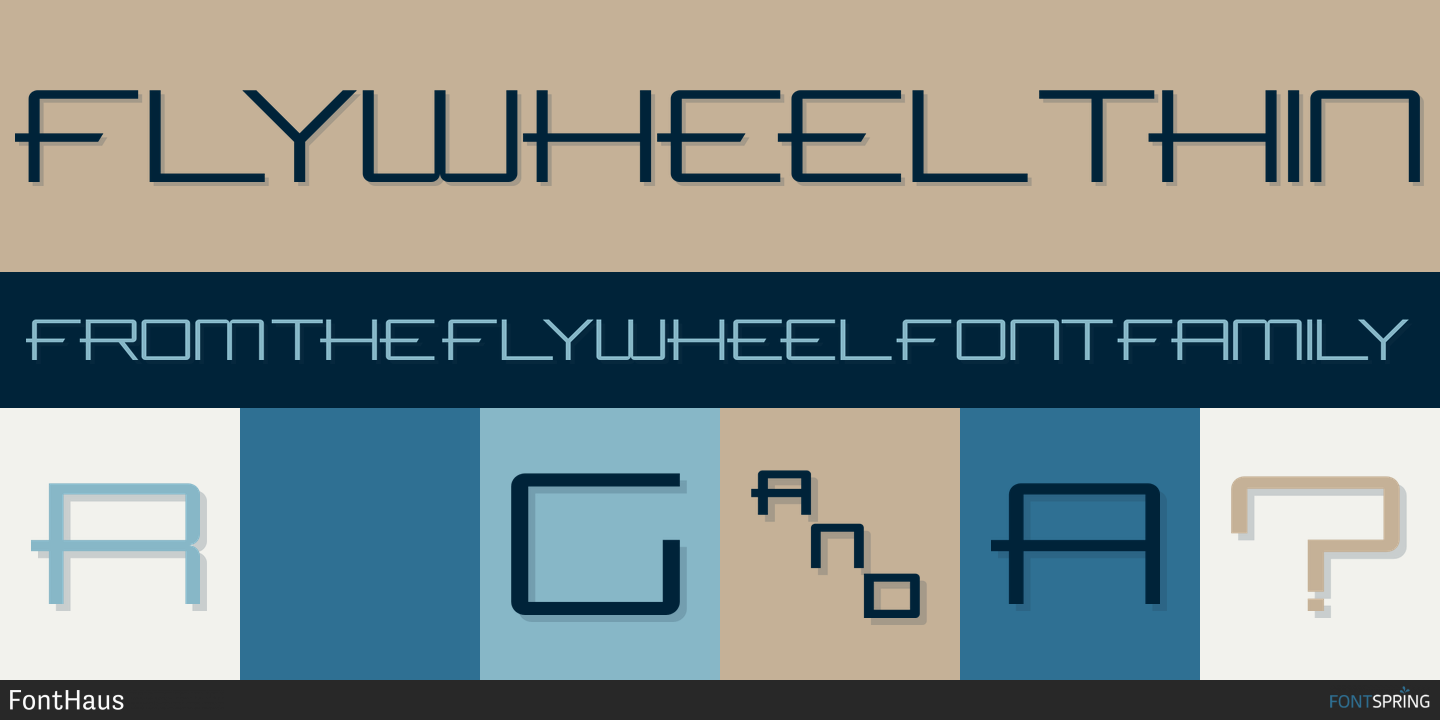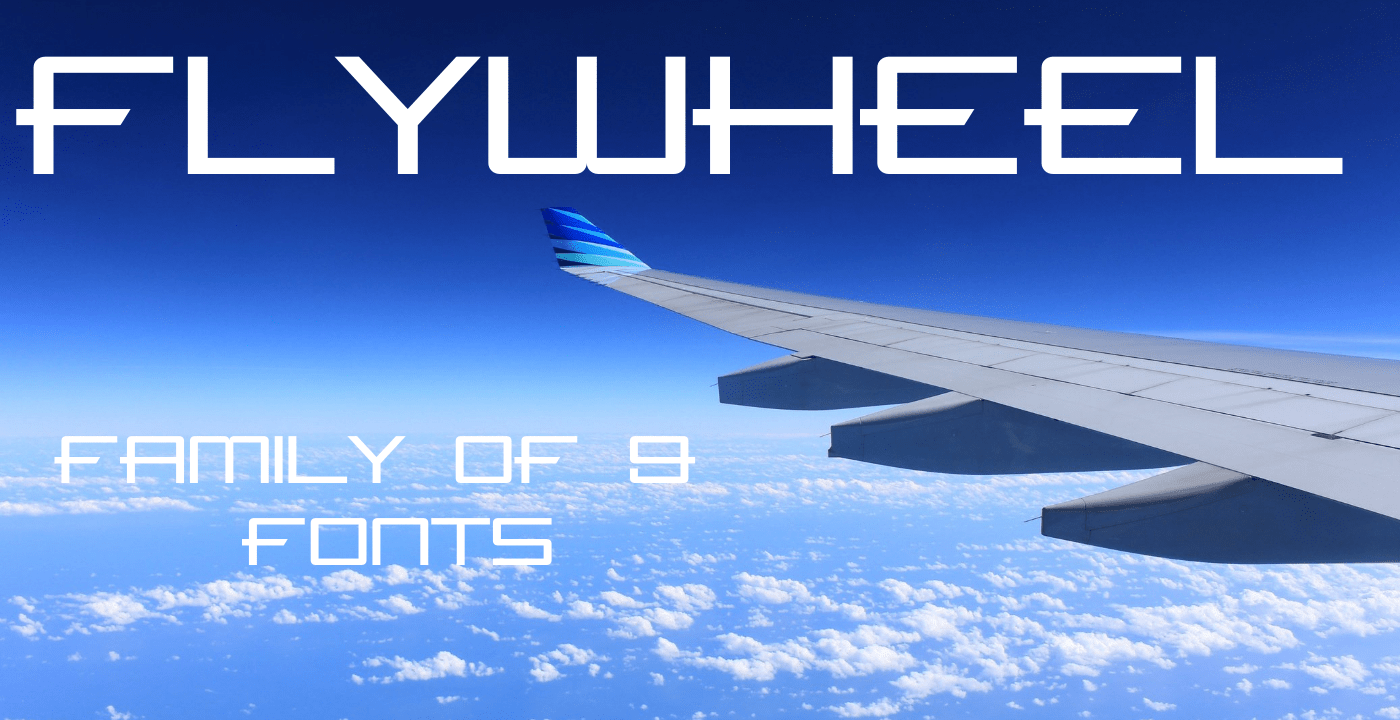
Flywheel Font Free Download . Download radiance skyline font · free for personal use · radiance skyline is a striking mix and match typeface that radiates stylish. The font family is made up of three sets; Flywheel contains 9 styles and family package options. Download neometracaps font · free for personal use · neometra caps are a new sans serif fonts, extremely thick and square in proportion,. Flywheel is a geometric sans serif typeface for titling and display. Flywheel is a geometric sans serif typeface for titling and. From regular styles in different weights to condensed, it can fit nicely on a page, movie. Introducing flywheelsquare font, a modern and versatile typeface that combines sleek lines with a touch of geometric flair. So if you need a font for futuristic design or themes, flywheel is a good contender. Although flywheel™ was designed in the early 90s, its design was popular in the 80s and remains popular today as an iconic look for.
Although flywheel™ was designed in the early 90s, its design was popular in the 80s and remains popular today as an iconic look for. Download radiance skyline font · free for personal use · radiance skyline is a striking mix and match typeface that radiates stylish. Flywheel is a geometric sans serif typeface for titling and display. Introducing flywheelsquare font, a modern and versatile typeface that combines sleek lines with a touch of geometric flair. Download neometracaps font · free for personal use · neometra caps are a new sans serif fonts, extremely thick and square in proportion,. Flywheel contains 9 styles and family package options. The font family is made up of three sets; Flywheel is a geometric sans serif typeface for titling and. So if you need a font for futuristic design or themes, flywheel is a good contender. From regular styles in different weights to condensed, it can fit nicely on a page, movie.
Flywheel Script Font
Flywheel Font Free Download The font family is made up of three sets; Download radiance skyline font · free for personal use · radiance skyline is a striking mix and match typeface that radiates stylish. Flywheel is a geometric sans serif typeface for titling and display. Download neometracaps font · free for personal use · neometra caps are a new sans serif fonts, extremely thick and square in proportion,. So if you need a font for futuristic design or themes, flywheel is a good contender. Flywheel is a geometric sans serif typeface for titling and. The font family is made up of three sets; Flywheel contains 9 styles and family package options. From regular styles in different weights to condensed, it can fit nicely on a page, movie. Although flywheel™ was designed in the early 90s, its design was popular in the 80s and remains popular today as an iconic look for. Introducing flywheelsquare font, a modern and versatile typeface that combines sleek lines with a touch of geometric flair.
Flywheel 2 by Zilligen Design Studio on Dribbble Flywheel Font Free Download neometracaps font · free for personal use · neometra caps are a new sans serif fonts, extremely thick and square in proportion,. Download radiance skyline font · free for personal use · radiance skyline is a striking mix and match typeface that radiates stylish. From regular styles in different weights to condensed, it can fit nicely on a page,. Flywheel Font Free Download.
Flywheel Script Font Flywheel Font Free Download Flywheel is a geometric sans serif typeface for titling and. Download radiance skyline font · free for personal use · radiance skyline is a striking mix and match typeface that radiates stylish. The font family is made up of three sets; Although flywheel™ was designed in the early 90s, its design was popular in the 80s and remains popular today. Flywheel Font Free Download.
Flywheel Logo PNG vector in SVG, PDF, AI, CDR format Flywheel Font Free Download From regular styles in different weights to condensed, it can fit nicely on a page, movie. So if you need a font for futuristic design or themes, flywheel is a good contender. Introducing flywheelsquare font, a modern and versatile typeface that combines sleek lines with a touch of geometric flair. Flywheel is a geometric sans serif typeface for titling and. Flywheel Font Free Download.
20 Best Free Fonts Of 2017 Best Free Fonts vrogue.co Flywheel Font Free Download neometracaps font · free for personal use · neometra caps are a new sans serif fonts, extremely thick and square in proportion,. The font family is made up of three sets; Download radiance skyline font · free for personal use · radiance skyline is a striking mix and match typeface that radiates stylish. From regular styles in different weights. Flywheel Font Free Download.
Flywheel Complete Family Fonts Flywheel Font Free Download Flywheel is a geometric sans serif typeface for titling and. The font family is made up of three sets; Download radiance skyline font · free for personal use · radiance skyline is a striking mix and match typeface that radiates stylish. Introducing flywheelsquare font, a modern and versatile typeface that combines sleek lines with a touch of geometric flair. So. Flywheel Font Free Download.
FlywheelSquare Fonts Downloads Flywheel Font Free Download Although flywheel™ was designed in the early 90s, its design was popular in the 80s and remains popular today as an iconic look for. From regular styles in different weights to condensed, it can fit nicely on a page, movie. Flywheel is a geometric sans serif typeface for titling and. Download radiance skyline font · free for personal use ·. Flywheel Font Free Download.
Flywheel Font by pixelcolours · Creative Fabrica Flywheel Font Free Download Although flywheel™ was designed in the early 90s, its design was popular in the 80s and remains popular today as an iconic look for. Introducing flywheelsquare font, a modern and versatile typeface that combines sleek lines with a touch of geometric flair. Download radiance skyline font · free for personal use · radiance skyline is a striking mix and match. Flywheel Font Free Download.
Flywheel Script Font Flywheel Font Free Download The font family is made up of three sets; Download neometracaps font · free for personal use · neometra caps are a new sans serif fonts, extremely thick and square in proportion,. Flywheel is a geometric sans serif typeface for titling and. Although flywheel™ was designed in the early 90s, its design was popular in the 80s and remains popular. Flywheel Font Free Download.
Flywheel 17 Free Fonts To Download In 2016 vrogue.co Flywheel Font Free Download neometracaps font · free for personal use · neometra caps are a new sans serif fonts, extremely thick and square in proportion,. Flywheel is a geometric sans serif typeface for titling and display. Flywheel contains 9 styles and family package options. The font family is made up of three sets; From regular styles in different weights to condensed, it. Flywheel Font Free Download.